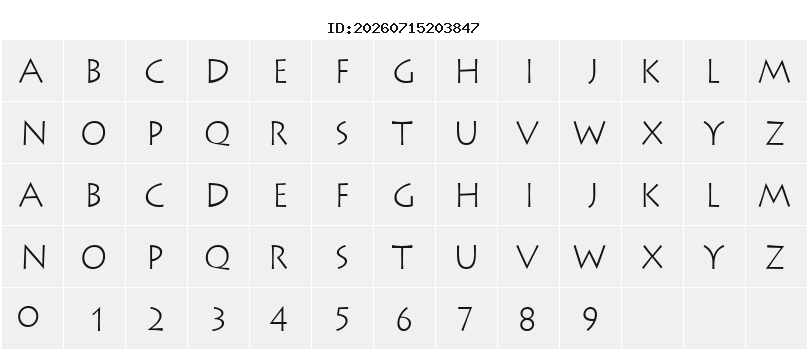
AustereLightCapsSSK.ttf is a modern, elegant sans-serif font designed for ultimate readability and visual harmony. Perfect for branding, headlines, web design, and print materials.